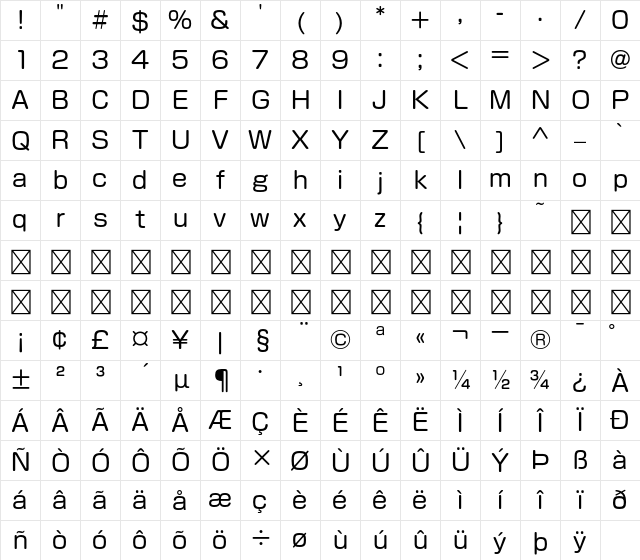
A-OTF Soft Gothic Std R
Style: R
Designer: Morisawa and Company Limited.
Complete A-OTF Soft Gothic Std R glyph index. Displaying only characters natively supported by A-OTF Soft Gothic Std R font.
Design Context for A-OTF Soft Gothic Std
A-OTF Soft Gothic Std takes a clean, functional approach - its unadorned letterforms prioritise legibility and work reliably across screen and print environments.
Font Pairing: Works well alongside a characterful serif or display font that can carry the expressive load while A-OTF Soft Gothic Std handles the functional copy.
Pro Tip: Use A-OTF Soft Gothic Std for UI labels, navigation, and short-form body copy where clean legibility is the priority.